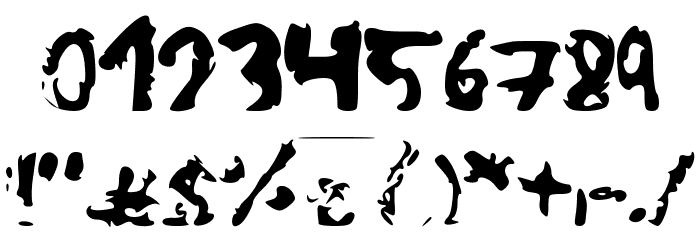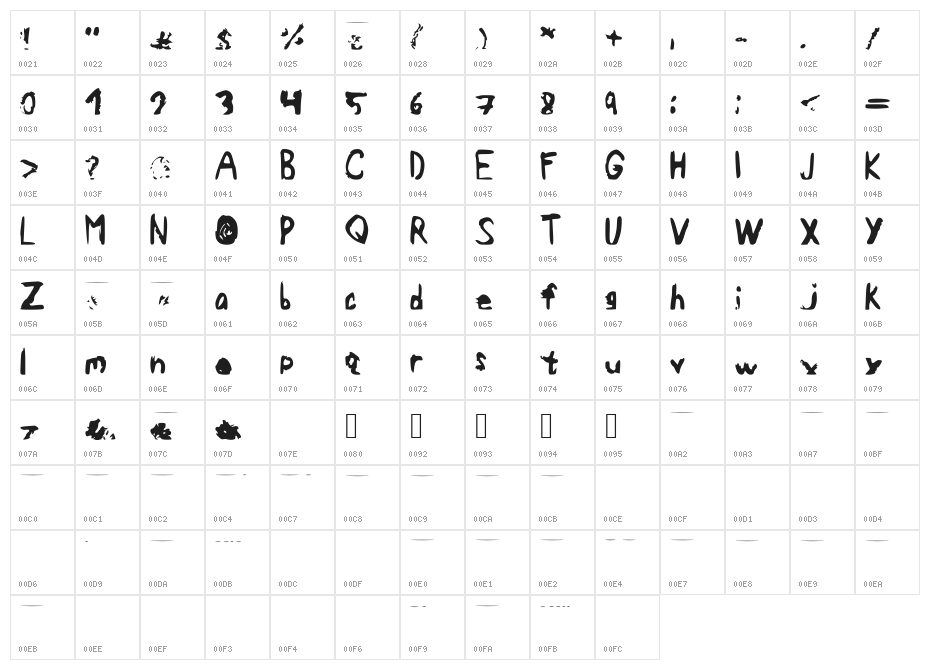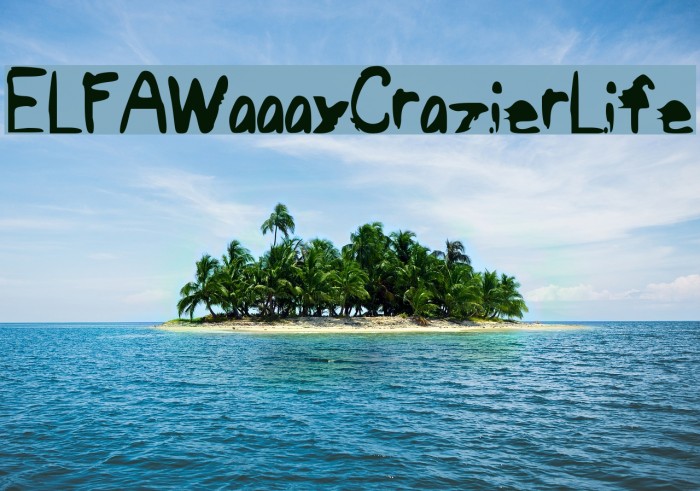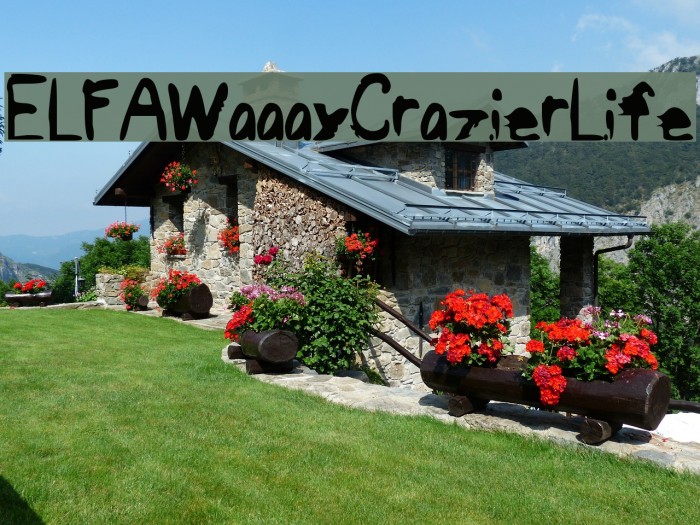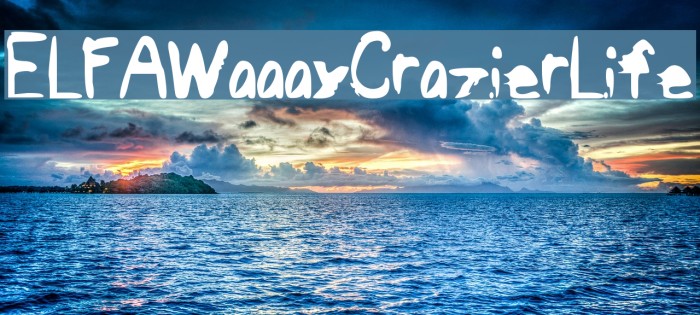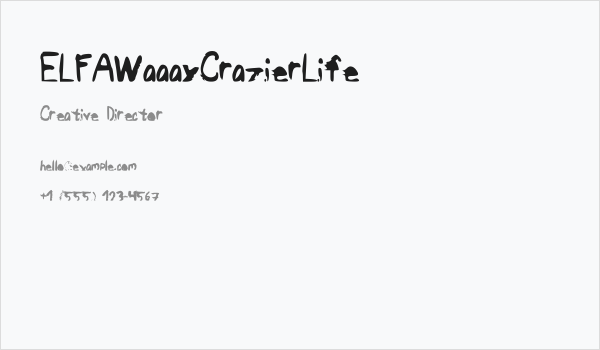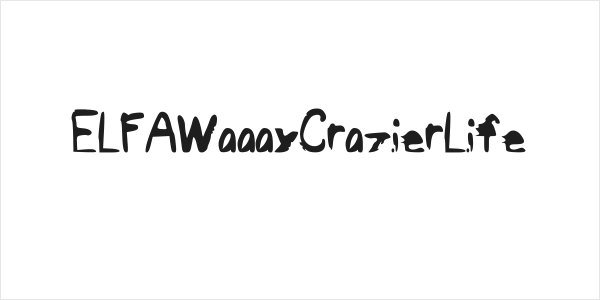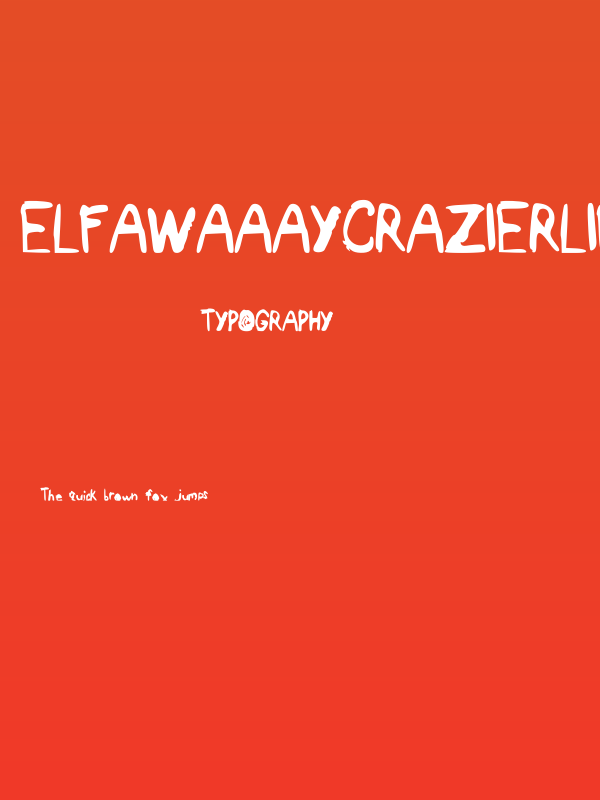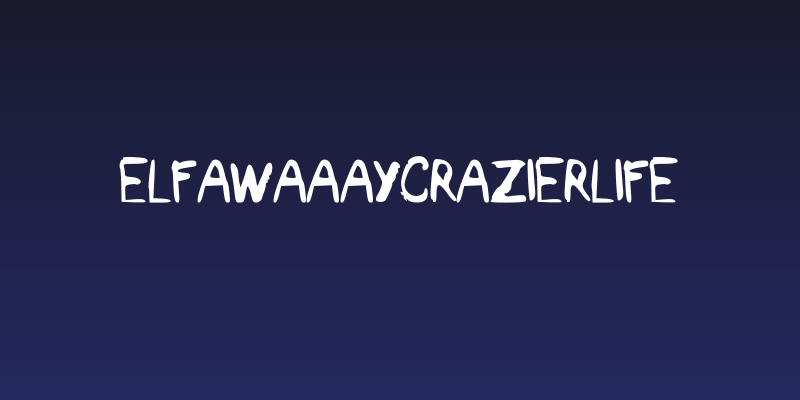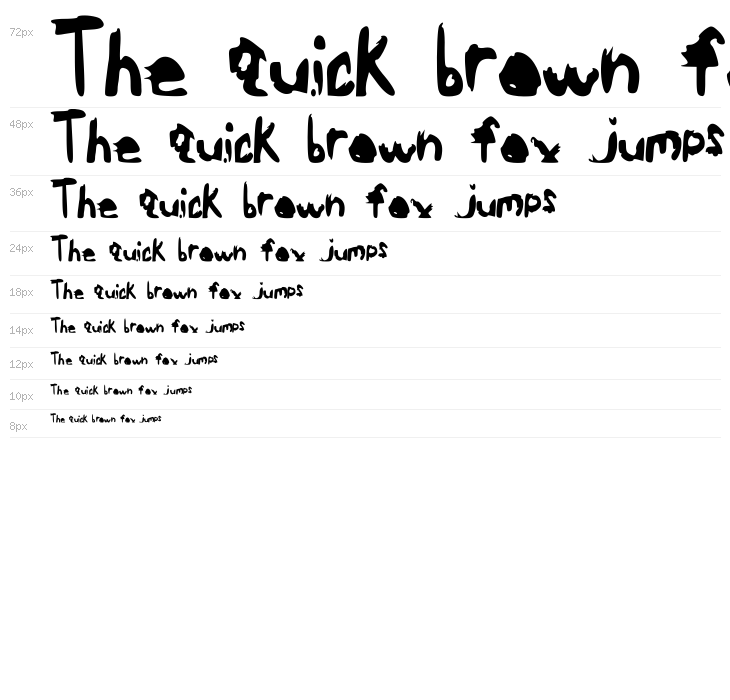
ELFAWaaayCrazierLife Font
ELFAWaaayCrazierLife Description
This font features a bold and expressive style with a highly irregular and artistic appearance. The characters are crafted with a brush-like texture, giving them a dynamic and energetic feel. Each letter has a unique form, with varying stroke thicknesses and playful curves, creating a sense of movement and spontaneity. The font's design is reminiscent of graffiti or street art, making it ideal for projects that require a bold and unconventional look. Its distinctive style captures attention and adds a creative flair to any design.
| Proposed Projects | Ideal for street art-inspired designs, posters, album covers, and creative branding projects. |